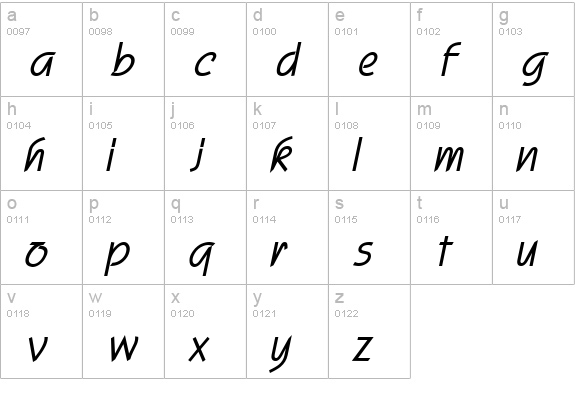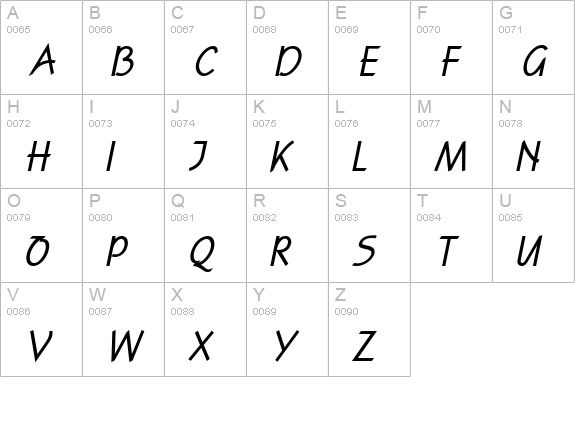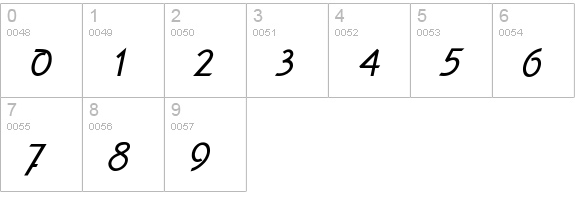
Scroll Heavy Italic Font Details
Scroll Heavy Italic is a heavy, high-impact, italic variant in the Scroll typeface family \xE2\x80\x94 well suited to high-impact headlines, posters, and display advertising.
Introducing Scroll Heavy Italic, an exquisite font that adds a touch of elegance and sophistication to any project. This font showcases a unique combination of fluidity and strength, making it perfect for conveying a sense of grace and grandeur. With its delicate curves and intricate details, Scroll Heavy Italic captures the essence of traditional calligraphy while adding a modern twist. Each letter flows seamlessly into the next, creating a captivating rhythm that draws the reader's eye and invites them to explore further. Whether used for headlines, invitations, branding, or any other creative endeavor, Scroll Heavy Italic exudes a timeless beauty that effortlessly elevates any design. Its versatility allows it to adapt to various styles and themes, making it a must-have for designers and creatives alike. And the best part? Scroll Heavy Italic is absolutely free to download at FontsMarket.com. We believe in making high-quality fonts accessible to everyone, which is why we offer this exceptional typeface as a complimentary addition to your font library. So, why wait? Discover the power of Scroll Heavy Italic today and unlock a world of endless design possibilities. Download it for free at FontsMarket.com and let your creativity soar to new heights.